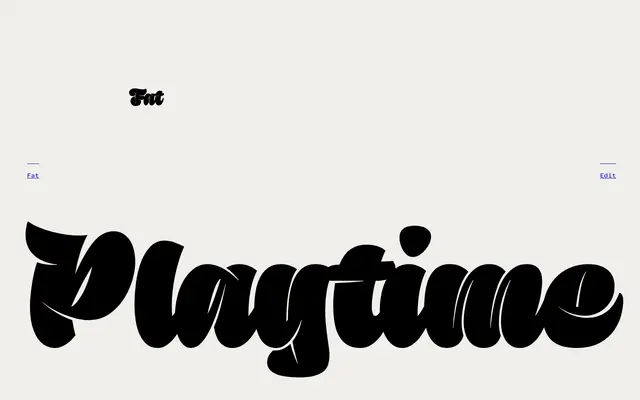
Sutturah
Rosetta · Octavio Pardo · 2011
An ultrablack display typeface by Octavio Pardo that fuses gothic Fraktur, wood type and handwriting influences into a single, wilfully irreverent weight.
Designed by Octavio Pardo and released in 2011, the typeface sits at the intersection of tightly constructed letterforms and the loose buoyancy of lettering traditions. A single ultrablack weight is backed by extra ligatures, swashes and OpenType alternates across Latin and Cyrillic scripts. It won a TDC Certificate of Excellence and a Granshan second prize in 2012, and was named among Typographica's best of that year.
A single ultrablack display weight drawing on gothic Fraktur and high-contrast wood types, combined with lettering and handwriting influences. Its constructed yet buoyant character places it squarely in the display category rather than blackletter proper.